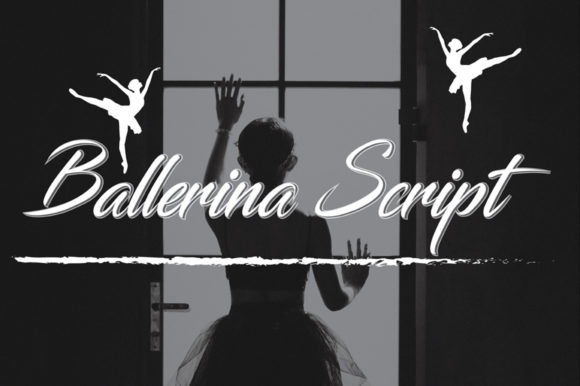
Behold, the Ballerina Script Font, a breathtaking creation by AD Studio, a name synonymous with typographic brilliance. This elegant handwritten font is not merely a collection of letters; it's an artistic masterpiece, a symphony of curves and strokes that dance across your designs with grace and poise.
Crafted with meticulous attention to detail, each character in Ballerina Script exudes personality and charm. Its flowing lines and delicate flourishes evoke a sense of timeless sophistication, reminiscent of handwritten letters penned with love and care. Whether you're designing wedding invitations, creating logos, or crafting social media posts, Ballerina Script will add a touch of elegance and refinement to your projects.
Dive into a world of creative possibilities with Ballerina Script. Its versatility is boundless, as comfortable in the realm of business cards as it is on posters, flyers, and brochures. Let your imagination soar as you explore the endless ways to incorporate this font into your designs. Experience the joy of creating designs that captivate and inspire, leaving a lasting impression on your audience.
Unleash the power of Ballerina Script and transform your designs into works of art. Its timeless beauty and effortless charm will elevate your projects to new heights, leaving your audience mesmerized. Embrace the art of typography and let Ballerina Script guide you on a journey of creative expression.